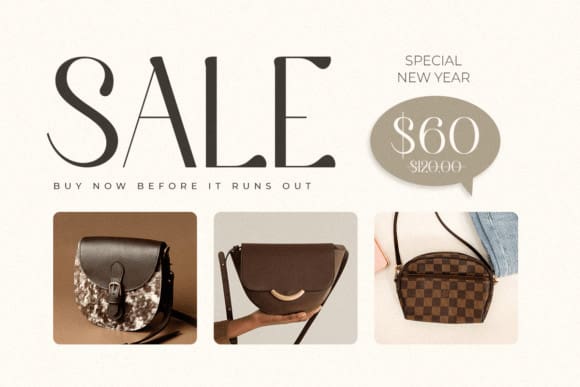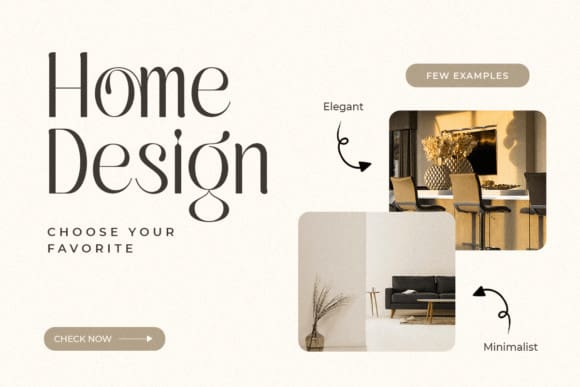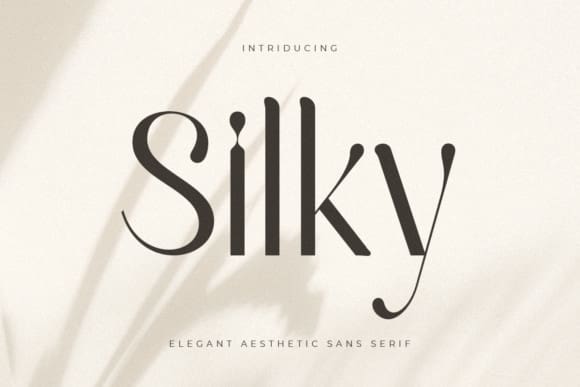
Silky Sans Font
Silky Sans Font is an elegant sans font, that features a very delicate and classy look. Not too thin and not too thick, balanced and varied, Silky was designed to enhance the beauty of your projects.